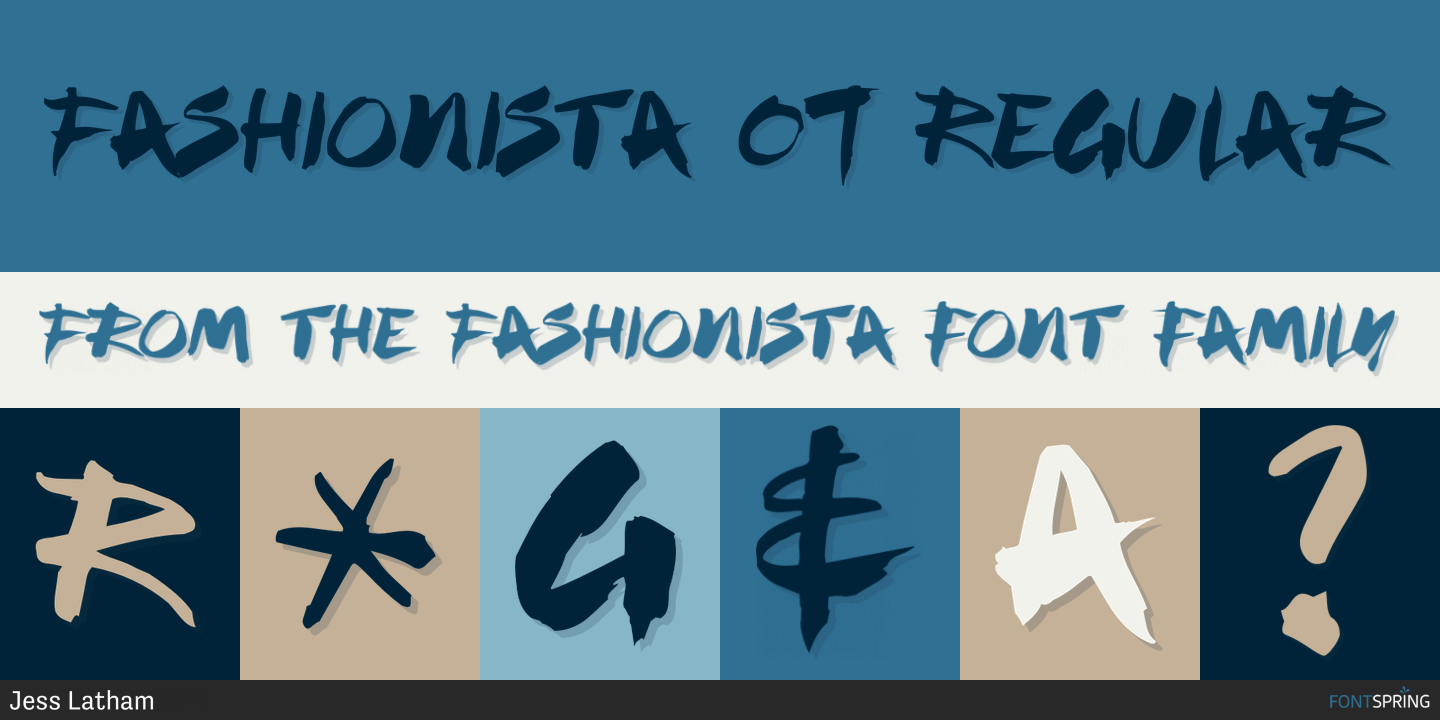
FASHIONISTA
Fashionista is a grunge font published by Blue Vinyl Fonts.
This is one of those arty designer fonts that’s great to use when you want a bit of flair and panache! Carefree, bold, splashy and of course fabulous darling! This font is an extended character set!
Foundry Jess Latham
Style Grunge